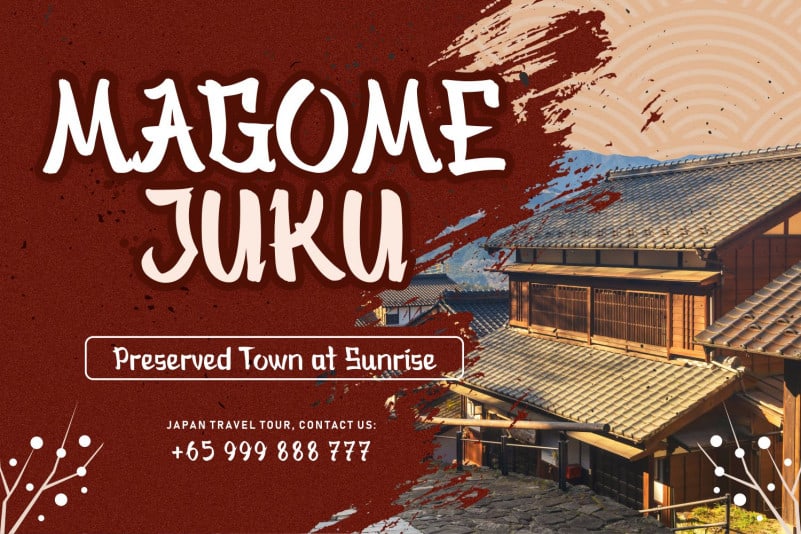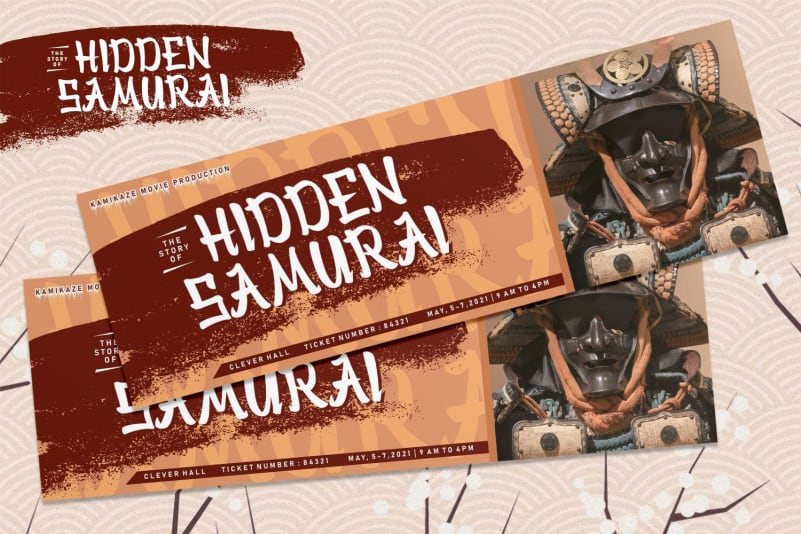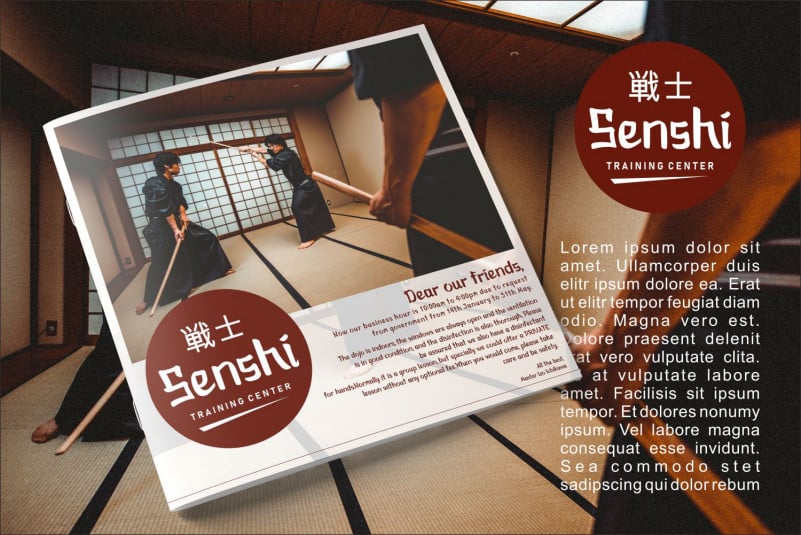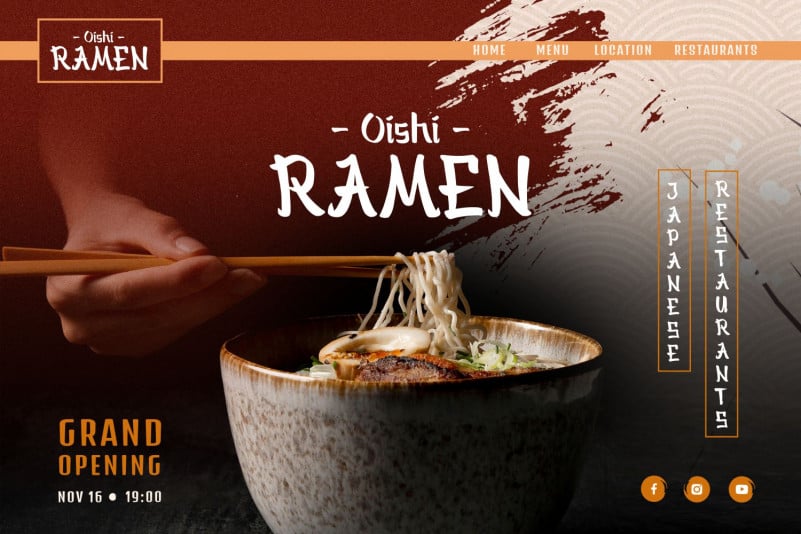
Bankai Display Font
Bankai Display Font is a unique and interesting display font. A little bit quirky, this font is a great choice for a wide variety of contexts!